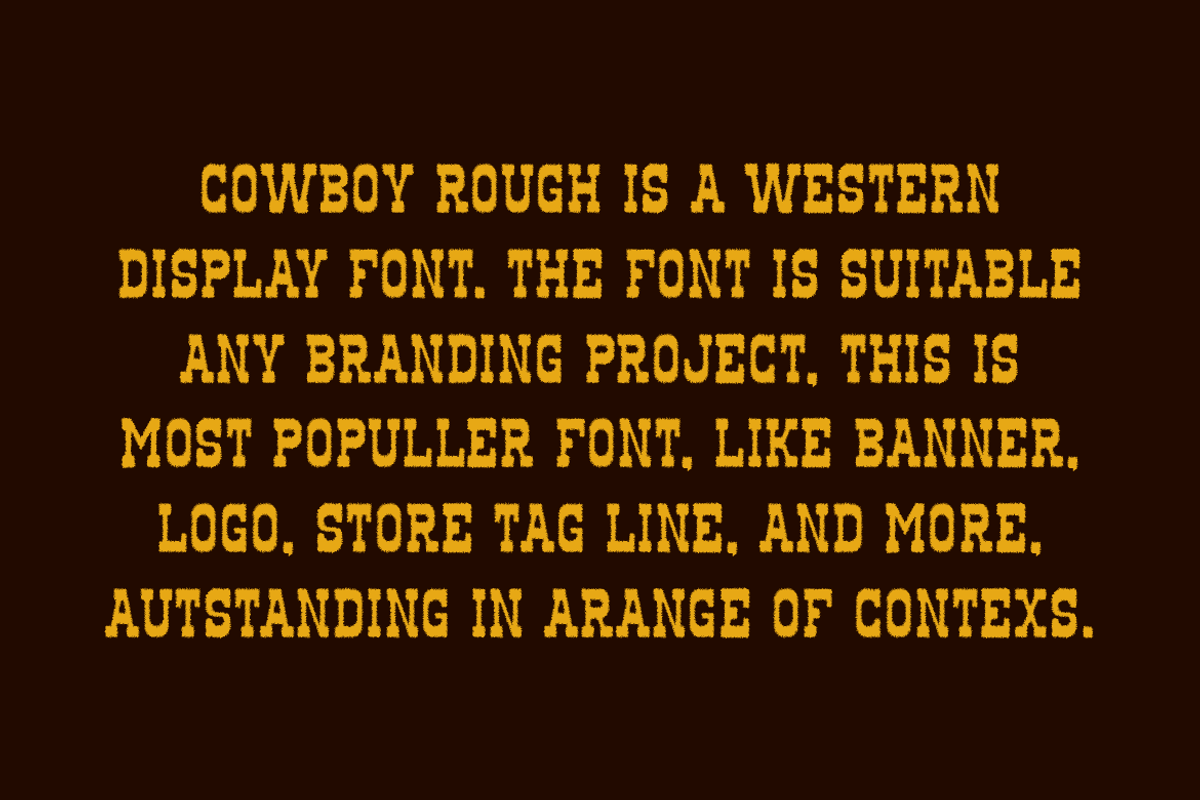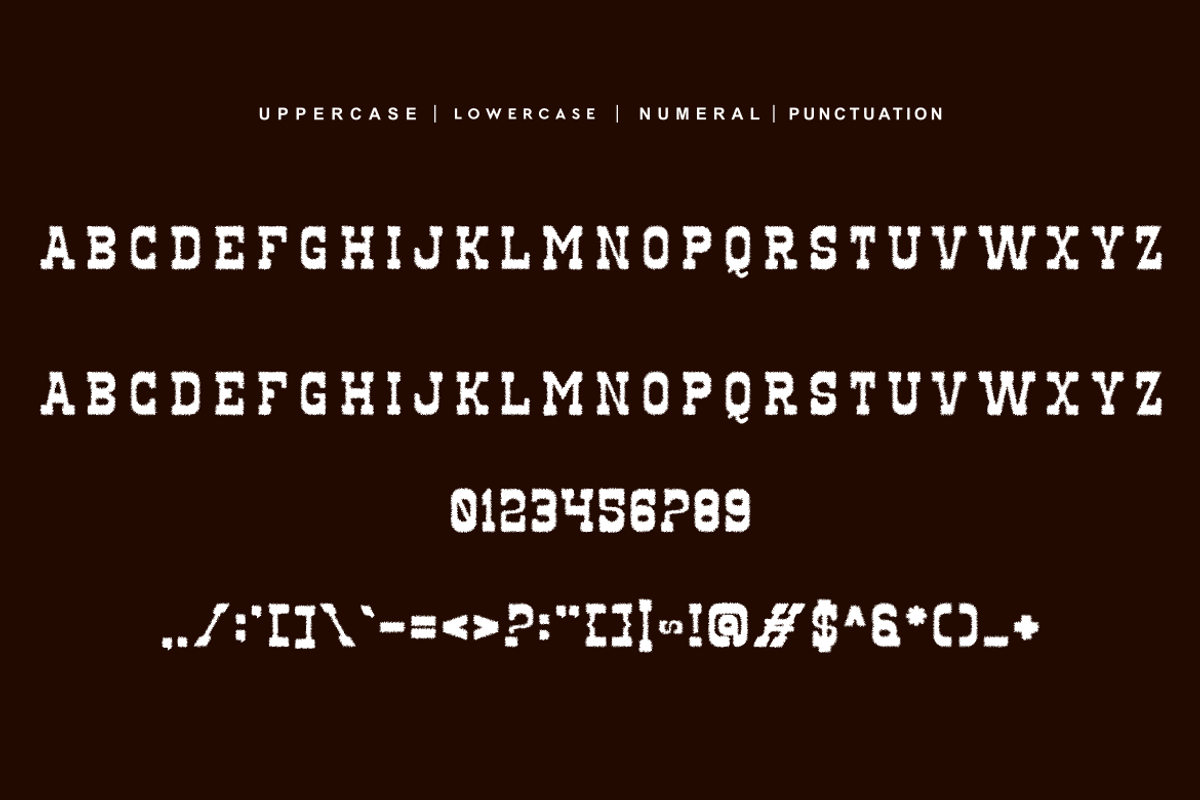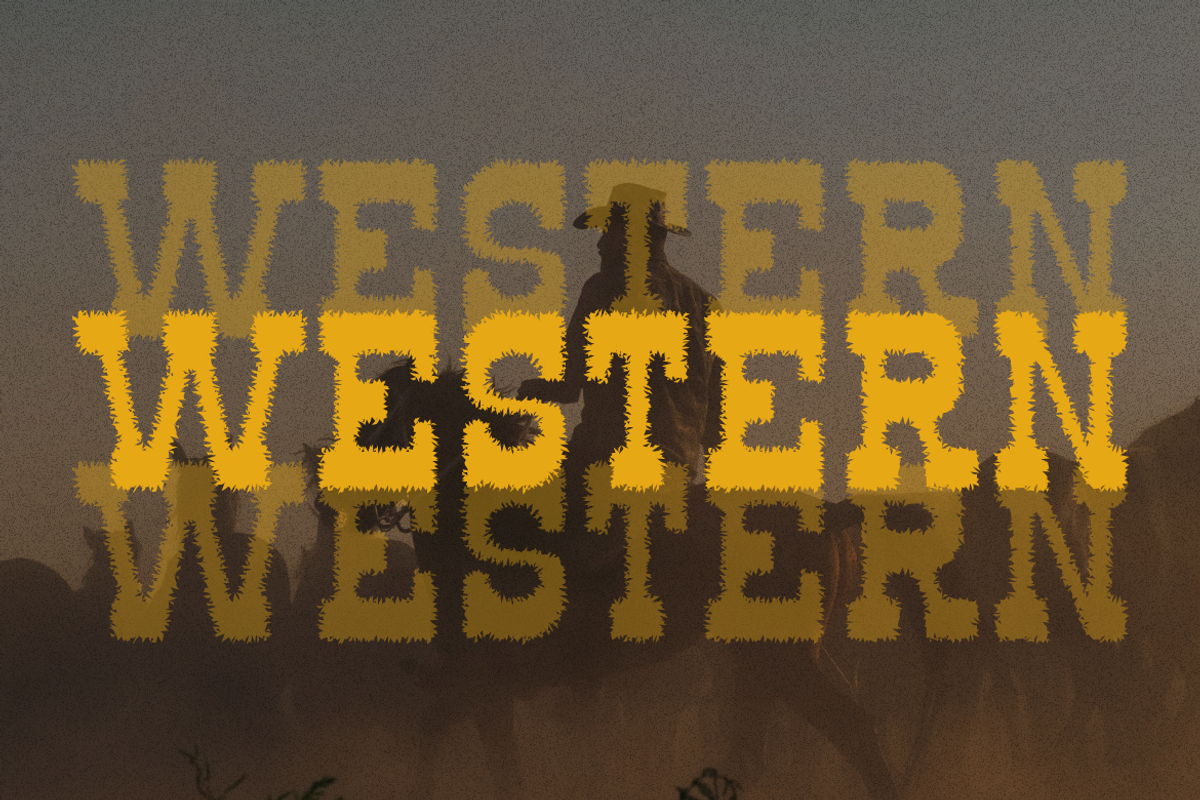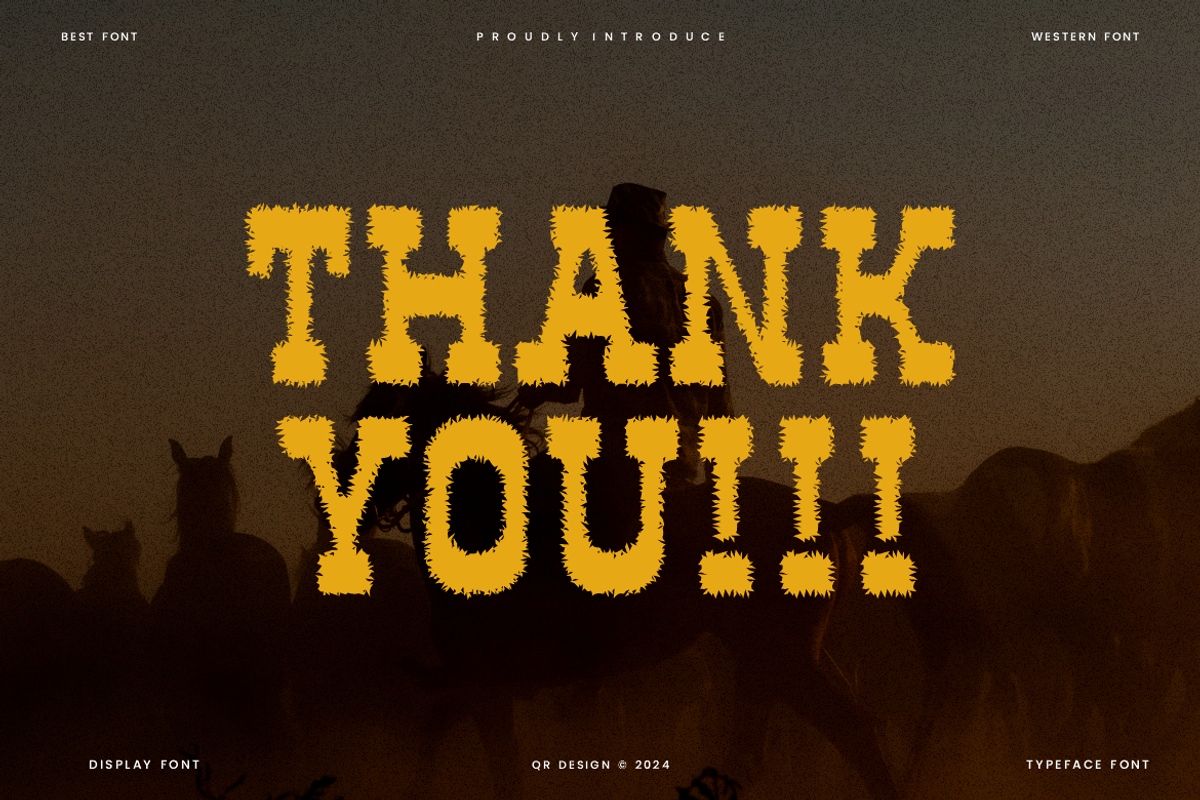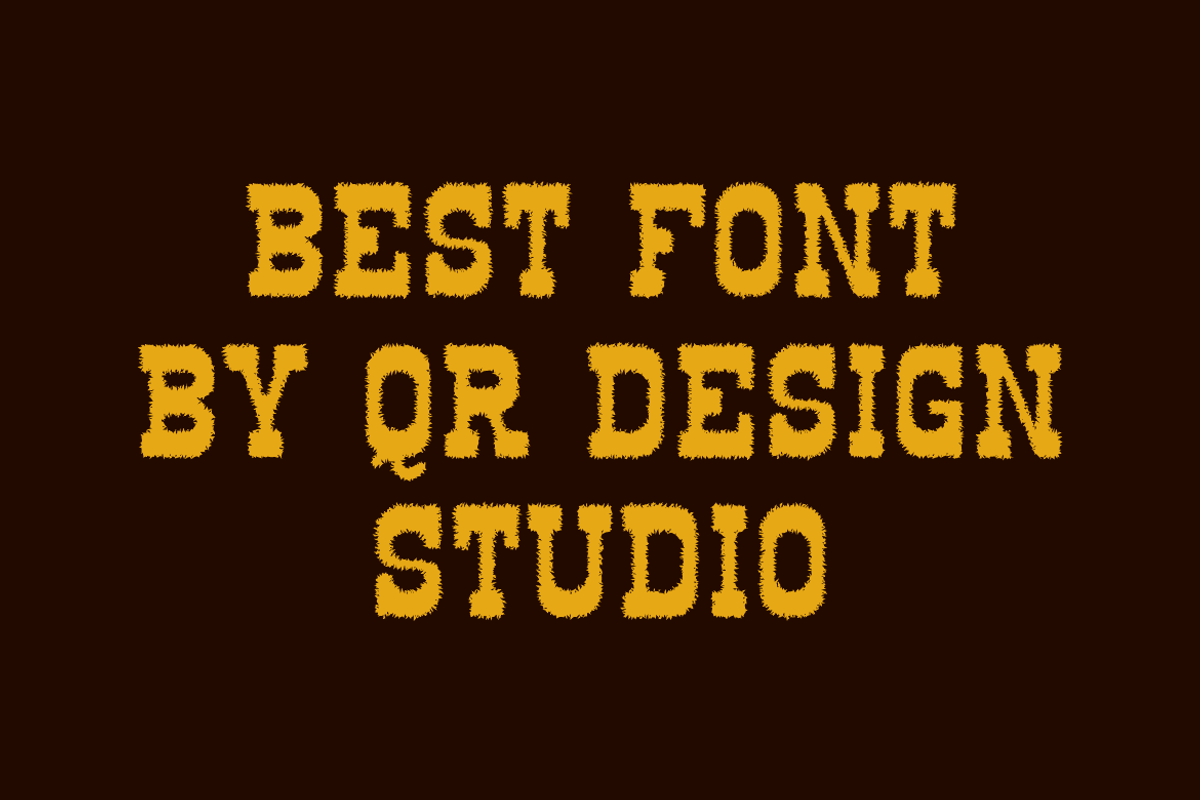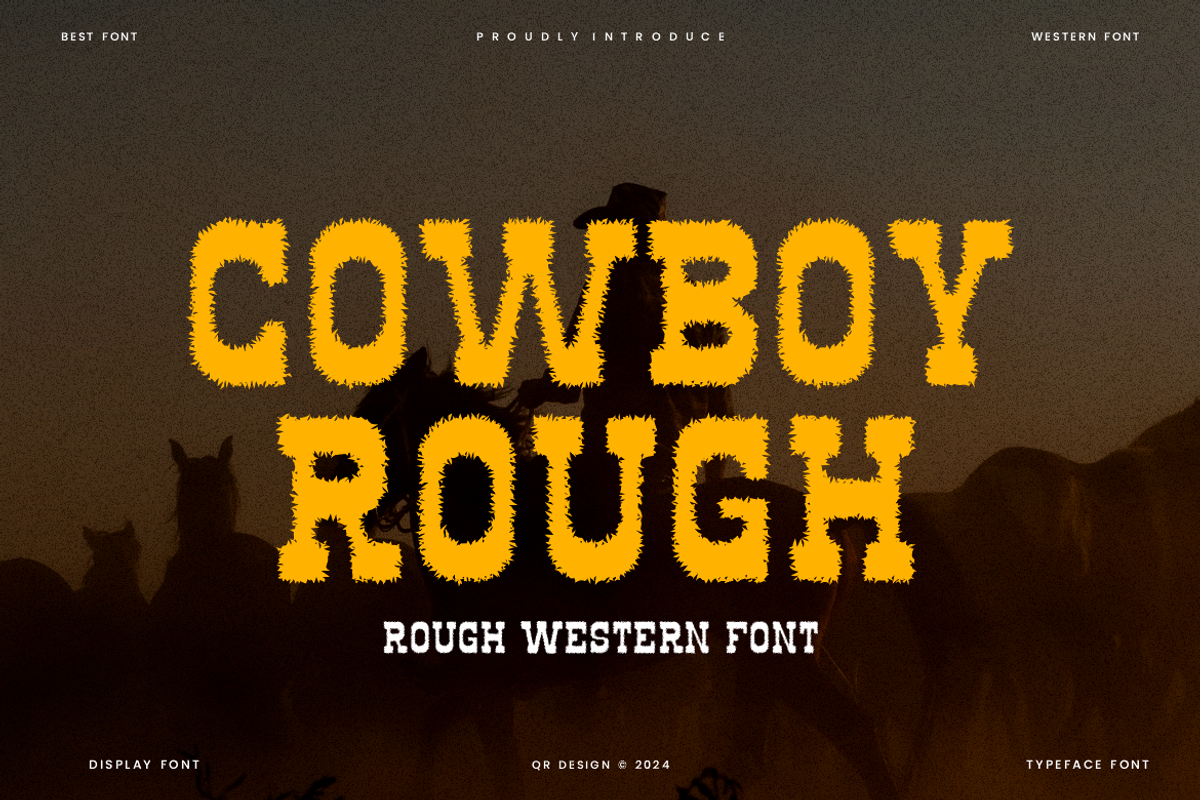
Cowboy Rough - Western Font
Cowboy Rough Font is a bold and authentic display font. The font is suitable for any branding project like poster, logo, sport, and many more. Outstanding in a wide range of contexts.